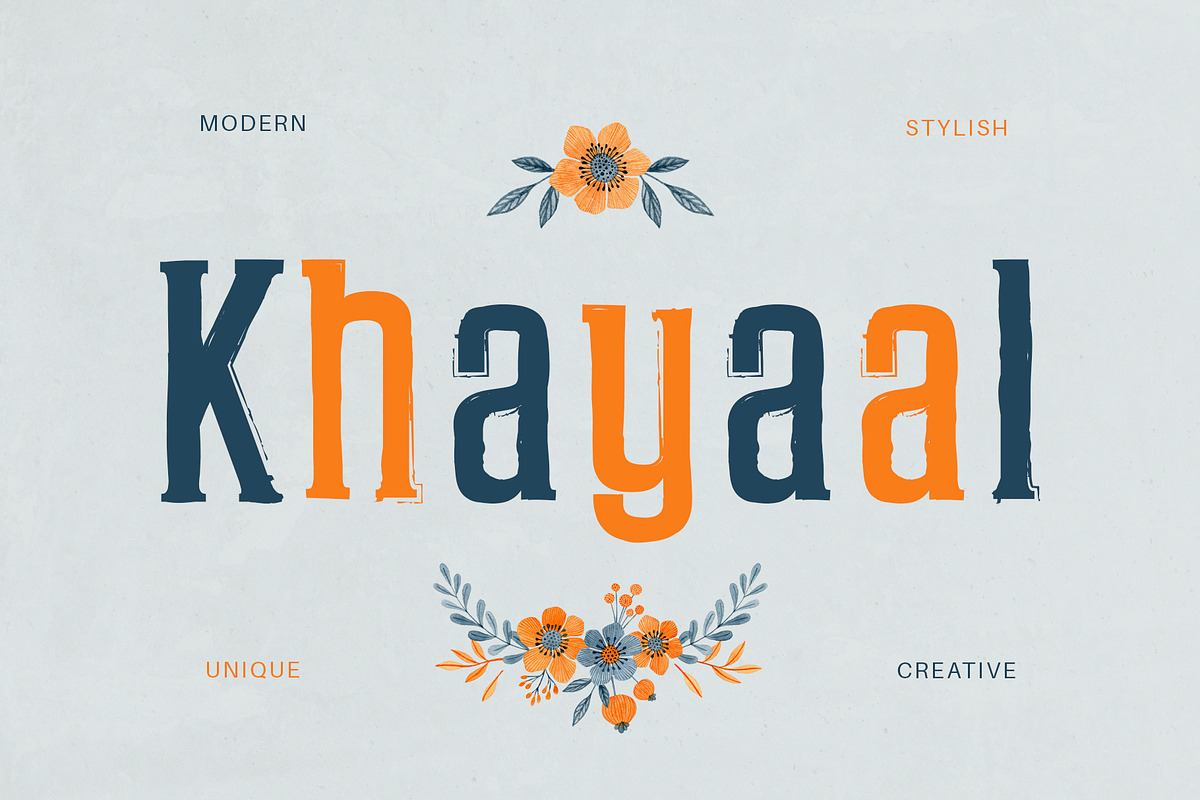
Khayaal Display Font Free Download is a bold and artistic typeface inspired by cultural expression and storytelling. With its unique shapes and striking presence, Khayaal is perfect for poster designs, book covers, artistic branding, creative headlines, and cultural event promotions that aim to stand out with meaning and style.
This font brings a handcrafted feel combined with modern design elements, making it ideal for both contemporary and traditional visual narratives. Whether you're creating a visual identity with depth or aiming to evoke emotion through typography, Khayaal offers a distinct and expressive voice.